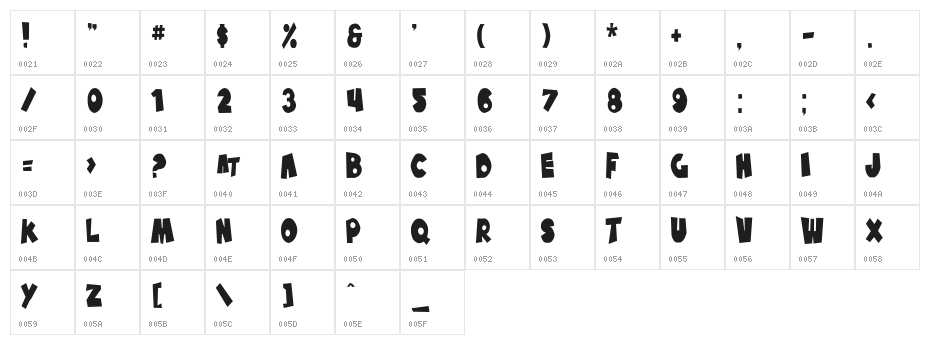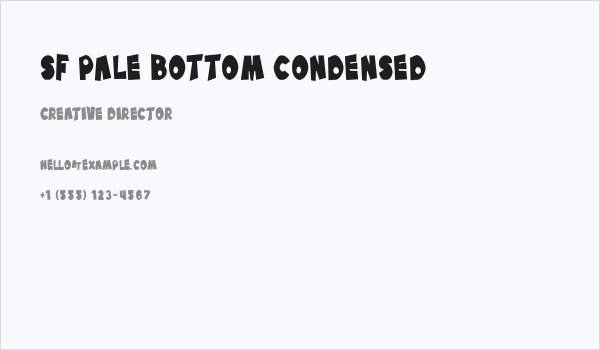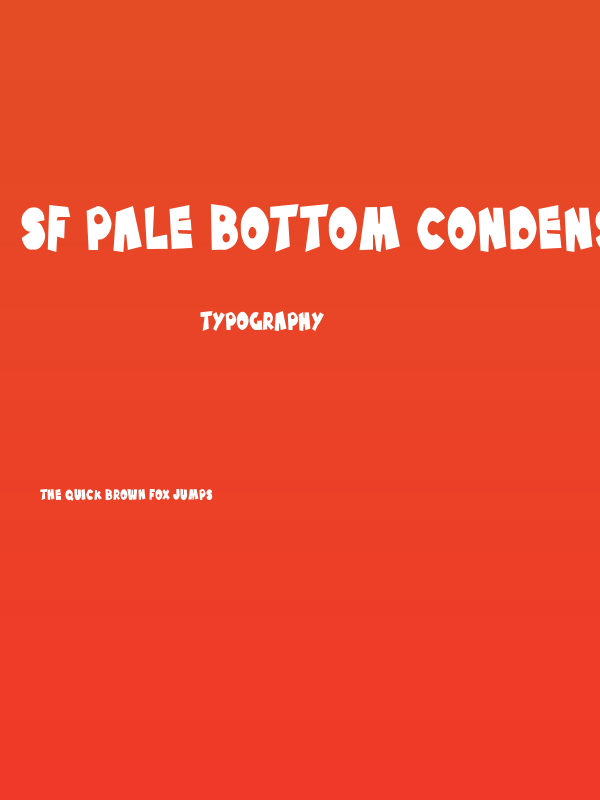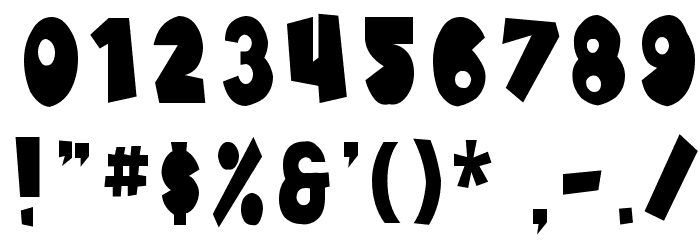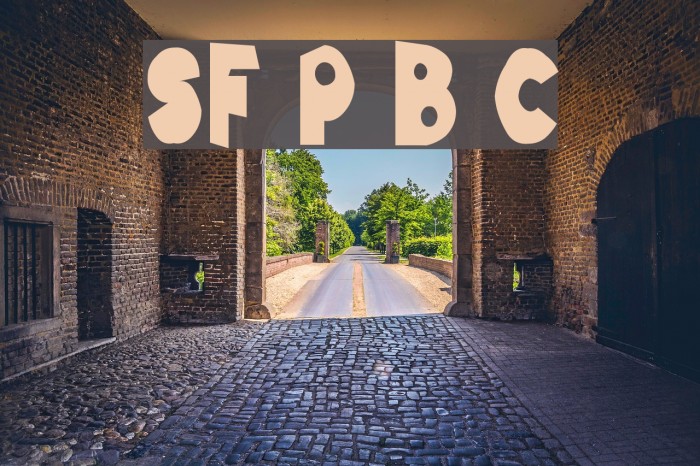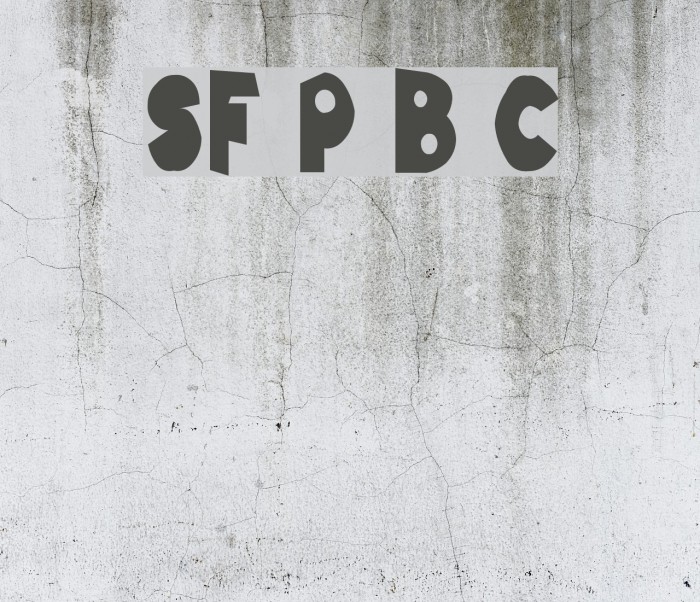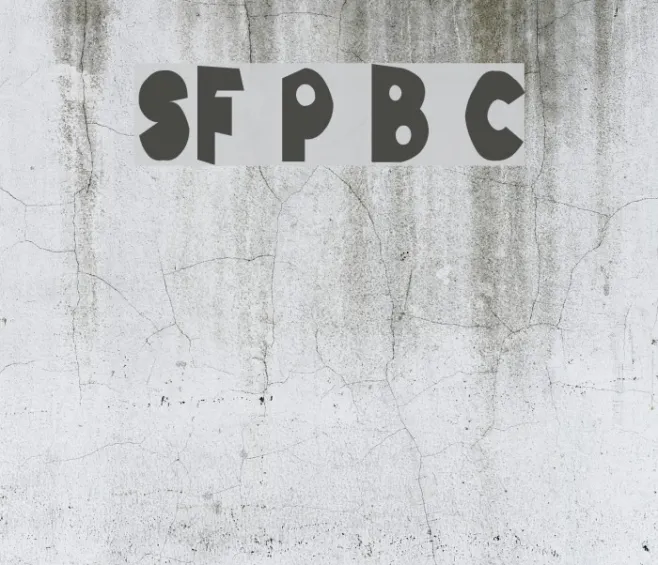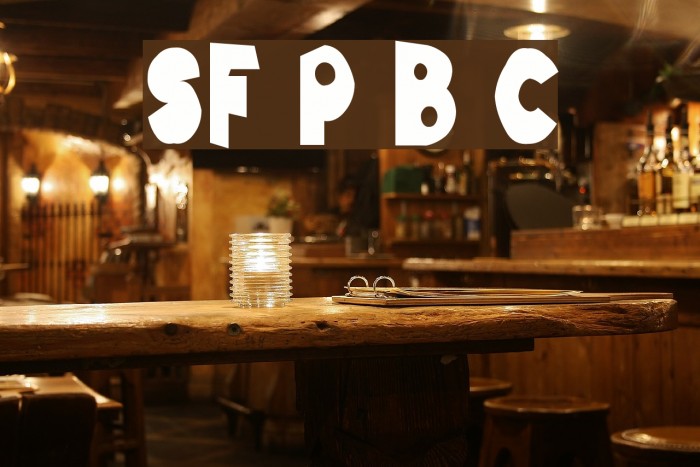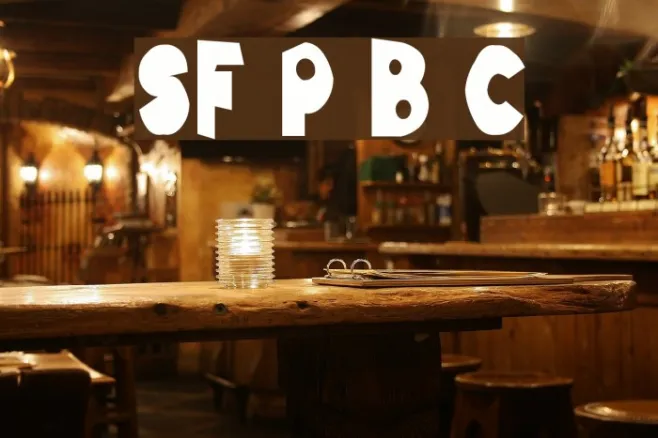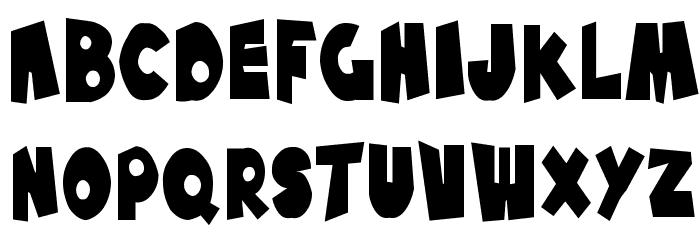
SF Pale Bottom Condensed Font
SF Pale Bottom Condensed Description
This font features a bold and playful design with a condensed width, giving it a unique and eye-catching appearance. The letters are characterized by their exaggerated, angular shapes and varying stroke widths, creating a dynamic and energetic feel. The uppercase and lowercase letters maintain a consistent style, with the lowercase letters slightly smaller but equally bold. The numbers and special characters follow the same design principles, ensuring a cohesive look across all characters. This font's distinctive style makes it ideal for projects that require a fun and engaging visual impact.
| Overall Style | Playful and Energetic |
| Proposed Projects | Ideal for children's books, comic strips, playful branding, and eye-catching posters. |